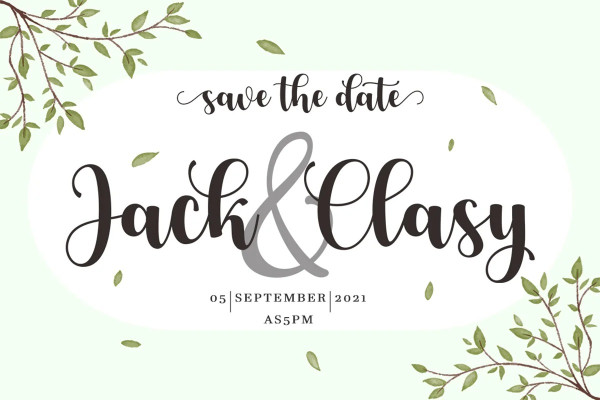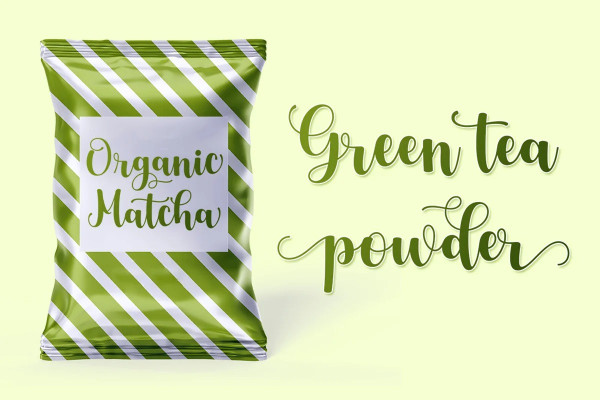
Matcha Latte Font
Matcha Latte Font is modern calligraphy font is casual and pretty with swashes. Can used for various purposes. such as logo, product packaging, wedding invitations, branding, headlines, signage, labels, signature, book covers, posters, quotes and more.